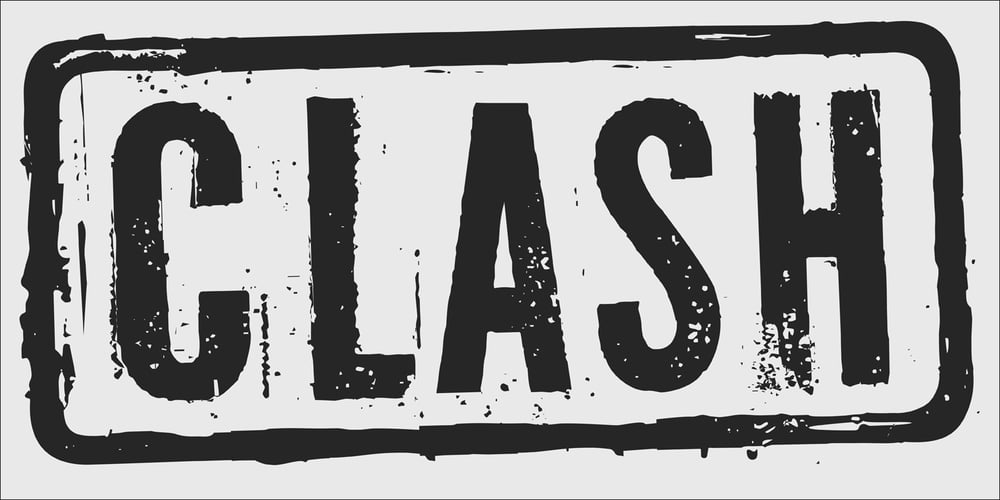
PF Fuel Pro Font Family was designed by Panos Vassiliou and published by Parachute. PF Fuel Pro contains 1 styles and family package options. This typeface was inspired by the rough surroundings of a modern city and reflects the contradicting nature of an emerging global youth culture. Ever since its first release—back in late 1999— it is constantly on our ‘most wanted’ list and has been part of numerous product campaigns. Music, mobile telephony, food and beverages, politics, you name it. Coca-Cola used it, José Cuervo used it for about 3 years. The new ‘Pro’ version goes one step ahead. You may now capture the essence of the younger generation in every major European language. PF Fuel has been extended with the full array of Cyrillic characters as well as matching frames for this extra stamped look. Furthermore there more alternate characters than ever. Create a custom look, when same characters sit close, or one next to the other. You may find these useful—alternate characters either in the lowercase positions, or access them through the ‘stylistic alternates’ OpenType Pro feature. If you need some extra fuel, this is where to get it!